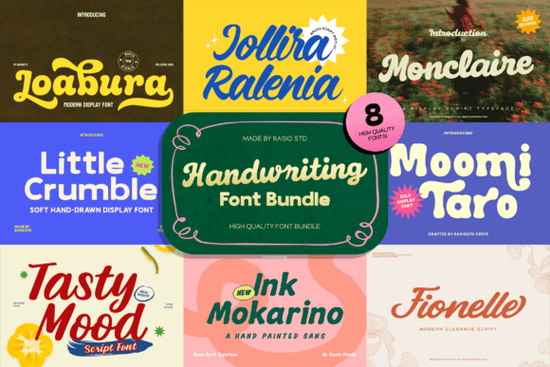
If you're looking for a set of handwriting-style fonts that feel genuine not stiff, not overly polished, but warm and human the Handwriting Bundle Font is a thoughtful, well-curated option. It’s designed for people who make things: designers choosing type for a small-batch jam label, crafters prepping printable birthday cards, or Etsy sellers building cohesive branding for a handmade soap line. This isn’t about flashy effects or trend-chasing scripts it’s about readability with personality, consistency across styles, and ease of use in real projects.
What’s actually in the bundle?
The collection includes multiple distinct handwriting fonts each with its own rhythm and character but all sharing a common foundation: they’re drawn, not generated. You’ll find relaxed casual scripts, slightly bouncy upright lettering, and soft connected styles that mimic natural pen movement. No two fonts behave the same way, so you can layer them meaningfully say, a bold headline in one style paired with a lighter subhead in another without clashing. All fonts include standard Latin characters, numbers, basic punctuation, and often alternate glyphs (like swash capitals or contextual ligatures) to add subtle variation.
When does this bundle work best?
It shines where warmth and approachability matter most. Think food packaging for a local bakery, greeting cards with handwritten notes, kids’ activity sheets, Instagram story text overlays, or boutique wedding stationery. Because each font balances expressiveness with clarity, it holds up well at medium sizes on mugs, tote bags, or social thumbnails without sacrificing legibility. You won’t need to manually adjust spacing or kerning for most uses, which saves time when you’re juggling multiple product mockups or seasonal launches.
For example, if you’re designing a playful recipe card, pairing a light, airy script from the bundle with clean sans-serif body text creates instant visual hierarchy and feels intentional, not random. Or if you run a small children’s book illustration business, having a few friendly, non-cartoony handwriting options helps keep your cover typography fresh across titles without leaning on overused fonts.
How does it compare to single-script fonts?
Buying individual fonts gives you precision you get exactly what you need for one project. But if you regularly create across categories (e.g., lifestyle branding one week, party printables the next), a bundle like this avoids repetitive searching and licensing checks. You’ll notice shared design sensibilities consistent x-heights, similar weight ranges, harmonious baseline alignment that make mixing and matching feel intuitive. That cohesion is harder to achieve when pulling fonts from different creators or marketplaces.
You’ll also find practical overlap with other popular Creative Fabrica scripts. If you’ve used Playful Note Font, you’ll recognize the same attention to natural stroke contrast. Fans of Laundry Font will appreciate the relaxed, unfussy rhythm. The gentle bounce in Giggle Beans Font echoes some of the livelier weights here, while the elegance in Wedding Party Font shares the same care around letter connections and exit strokes.
Where to use these fonts (and where to pause)
They’re ideal for display use: headlines, quotes, logos, product names, and short phrases. They’re less suited for long paragraphs or tiny UI text no surprise there, since true handwriting isn’t built for dense reading. Also, while most fonts include OpenType features, they’re not variable fonts, so you’ll select weight or style manually rather than sliding a control.
If those match up, the Handwriting Bundle Font is a grounded, versatile choice no hype, just usable, expressive type made for real creative work.